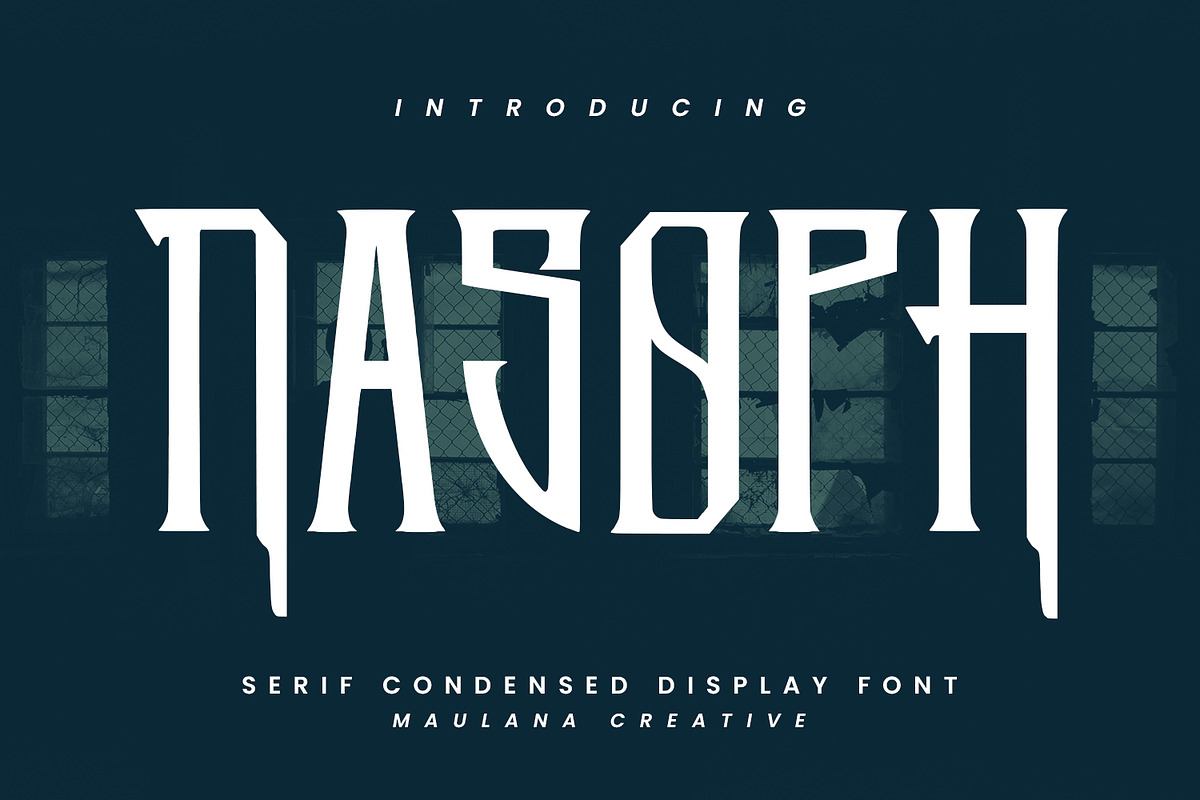
The Nasoph Serif Condensed Display Font Free Download is a modern and sleek serif typeface with a condensed design, making it perfect for creating bold headlines, logos, posters, and more. Its unique design combines the classic appeal of serifs with a contemporary condensed style, offering a strong and professional look. Please note, for commercial use, a license must be purchased. You can download it for free for testing purposes.
With its clean lines and condensed structure, the Nasoph Serif Condensed Display Font Free Download is ideal for projects that require high-impact typography with a modern twist. Whether you're working on branding, editorial design, or advertising, this font will ensure your designs stand out with its stylish and professional appearance.
Get the Nasoph Serif Condensed Display Font Free Download today and add a modern, condensed serif touch to your designs with this bold and elegant typeface.